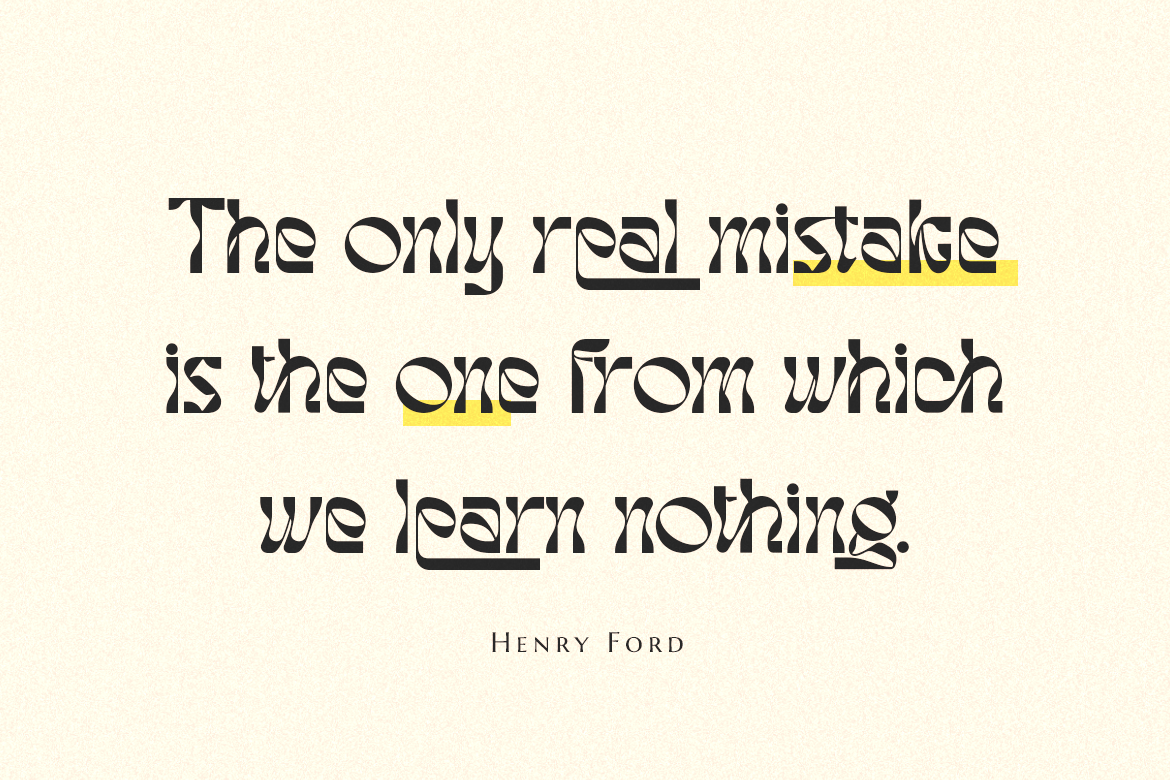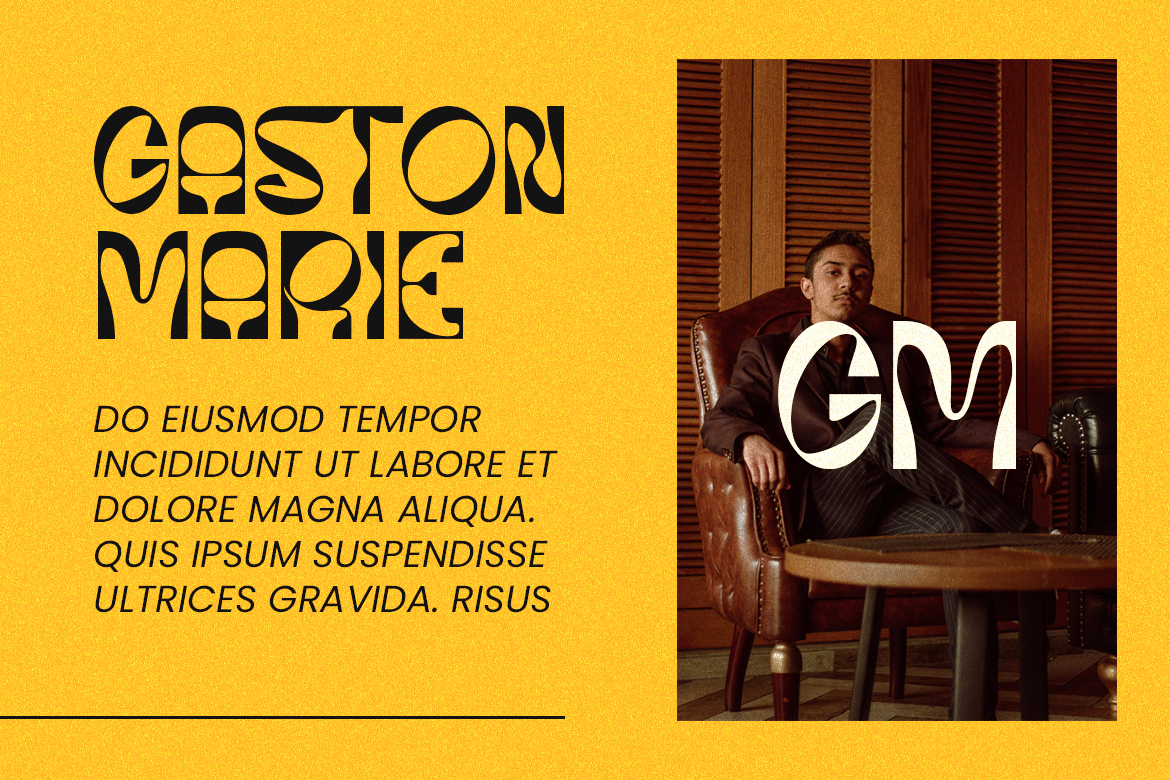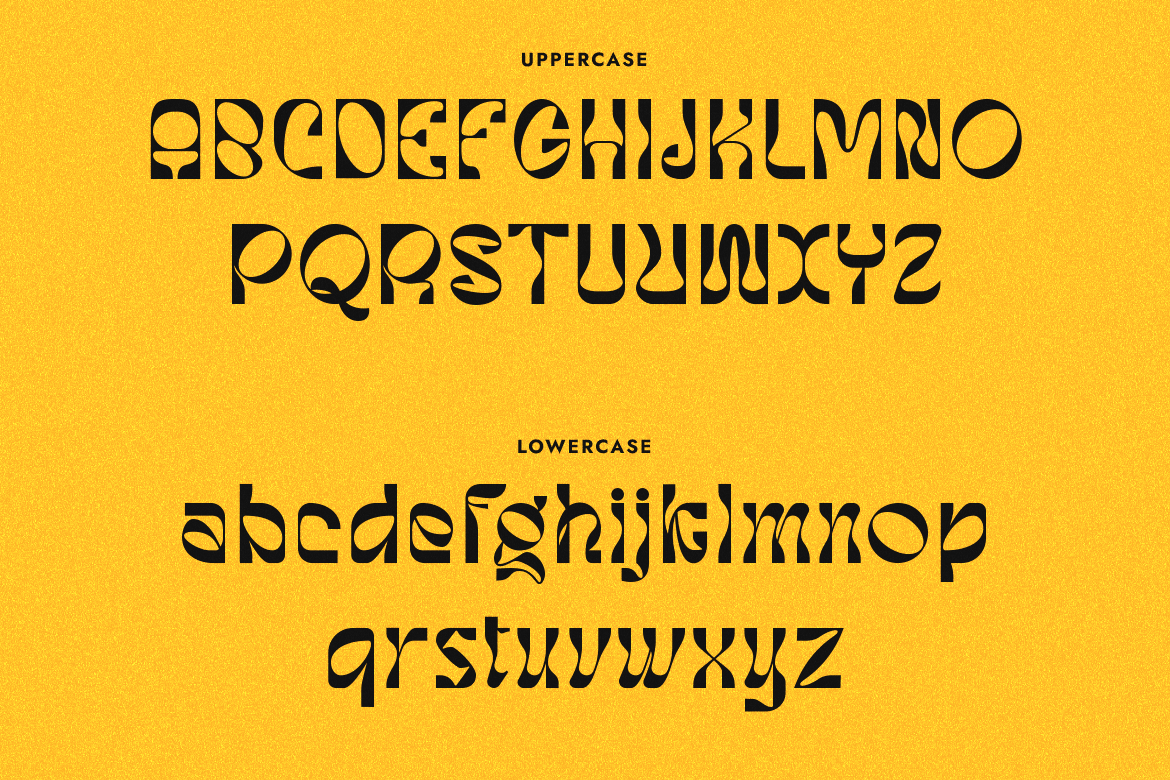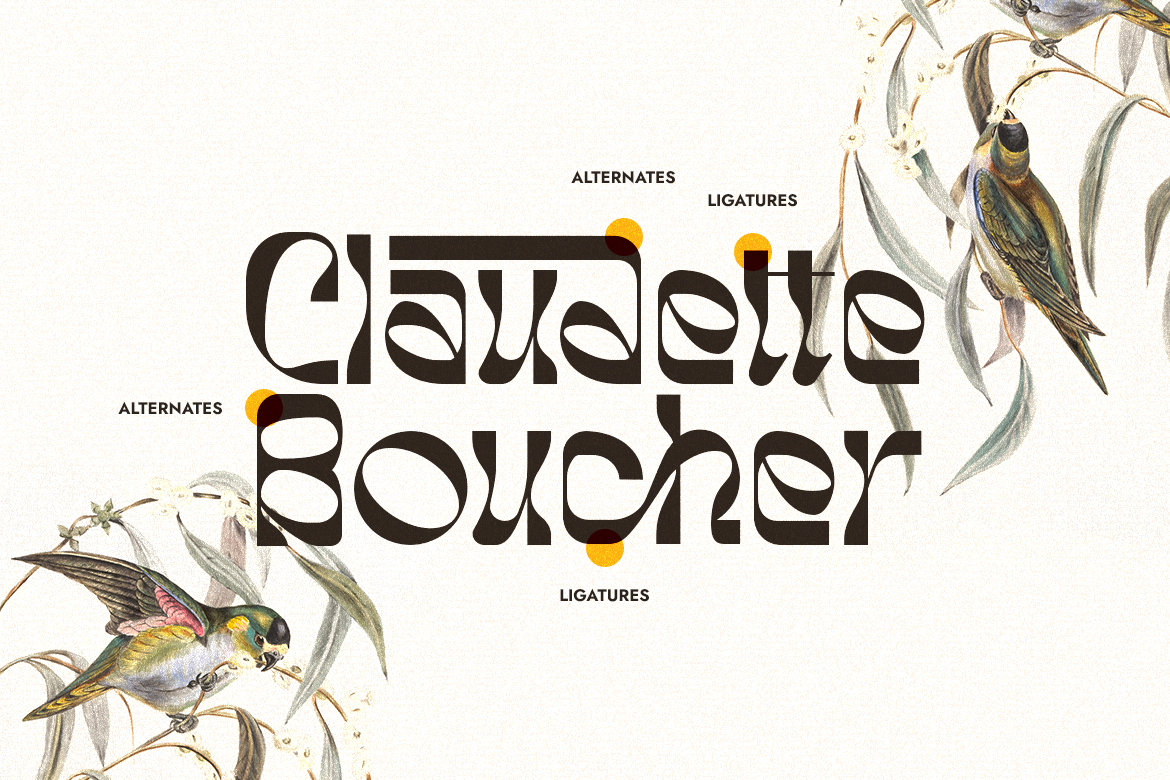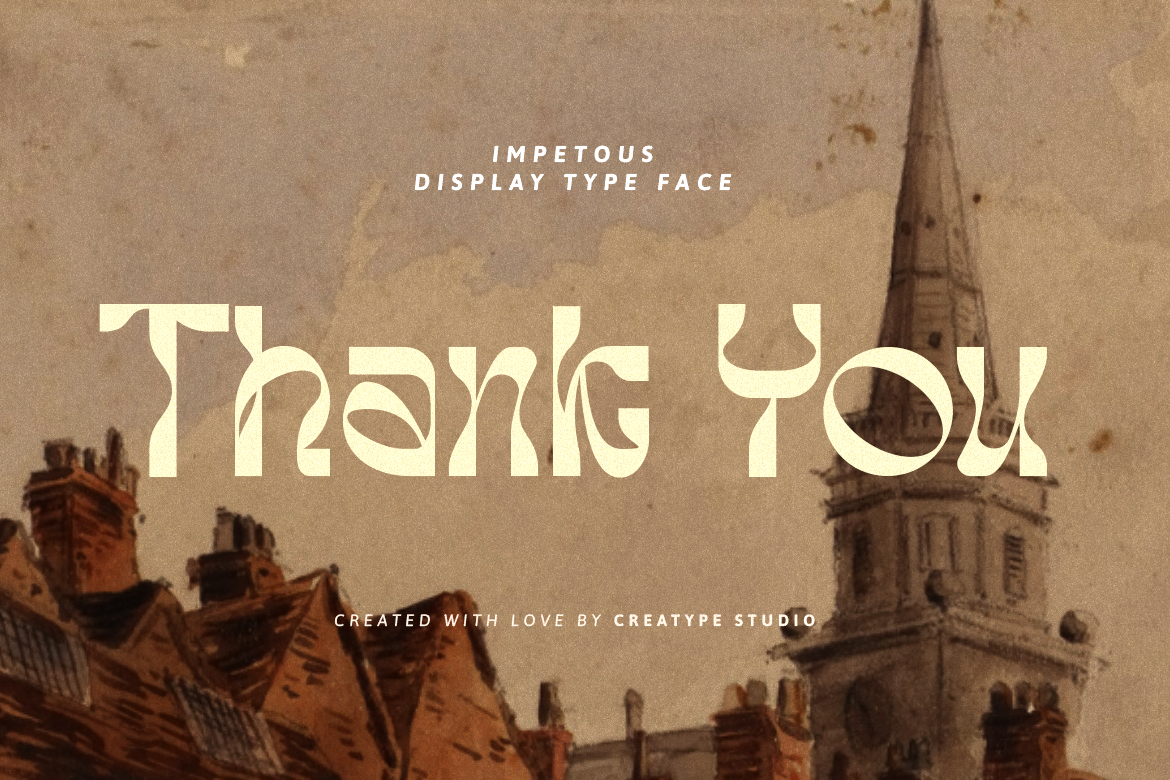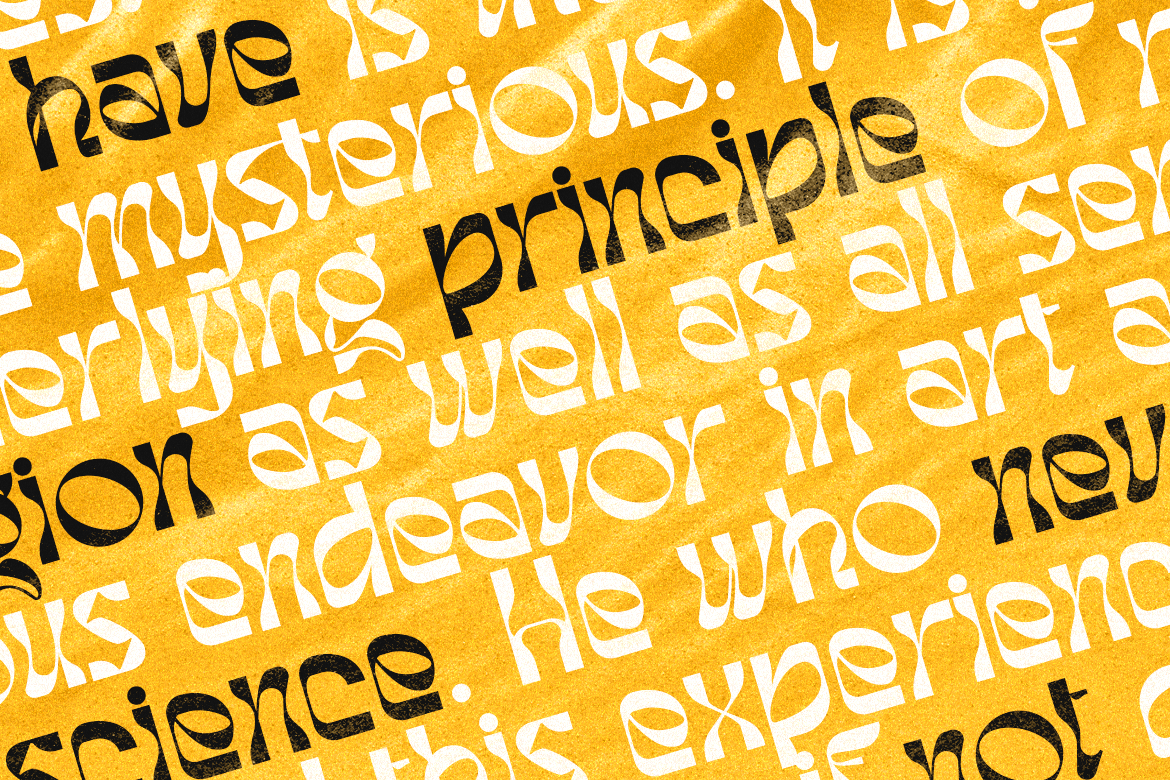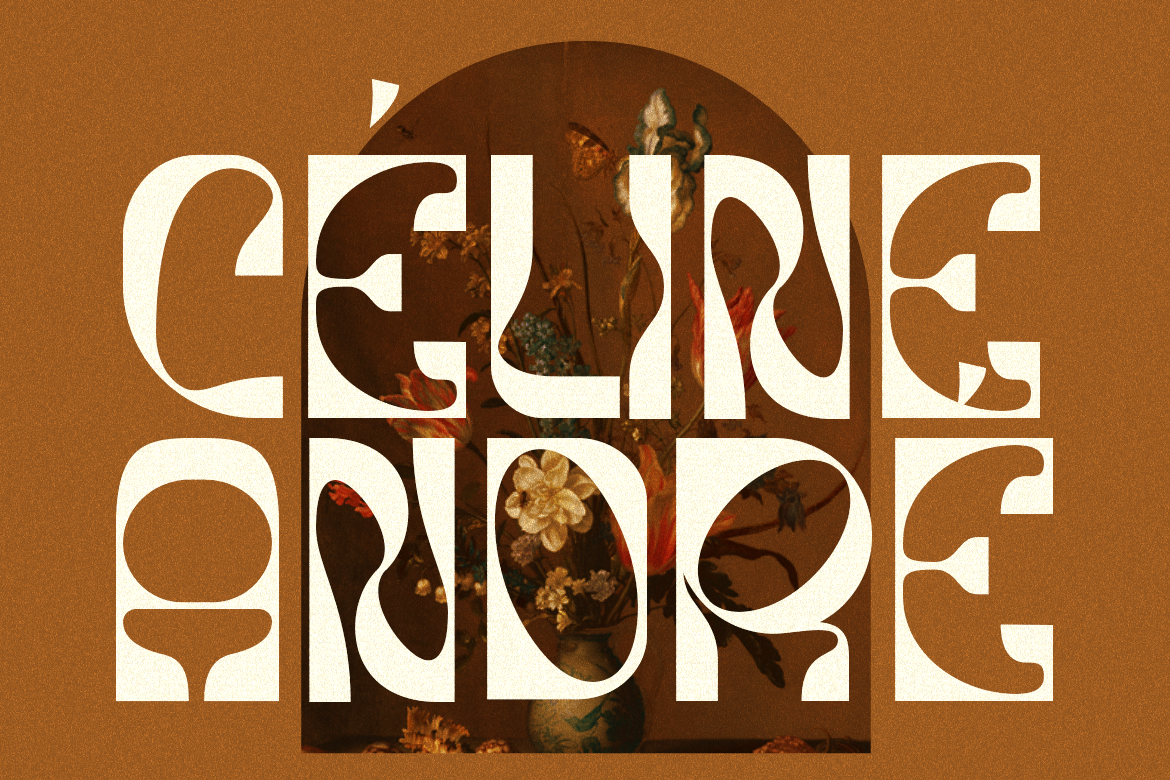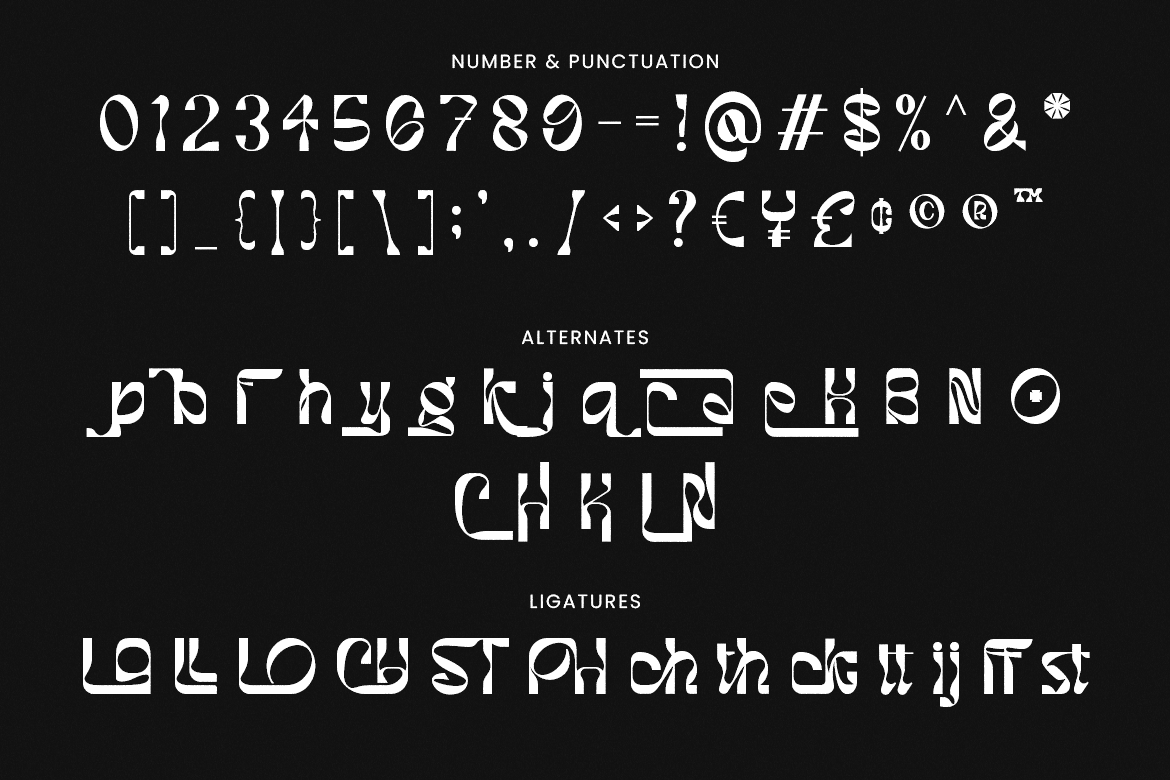
Impetous, a typeface that strikes the perfect balance between eye-catching design and flawless legibility
Impetous is perfect for branding projects, logos, wedding designs, social media posts, advertisements, product packaging, product designs, label, photography, watermark, invitation, stationery, and any projects that need handwriting taste.
Impetous Display Typeface